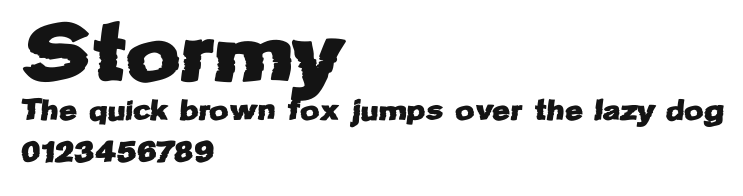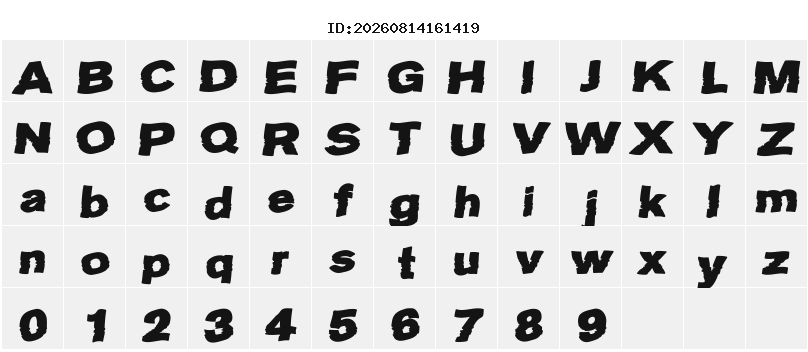
• Font Name: Stormy
• Font ID: Stormy
• Full Font Name: StormyBold
• PostScript Name: StormyBold
About Stormy.ttf
Stormy.ttf is a modern, elegant sans-serif font designed for ultimate readability and visual harmony. Perfect for branding, headlines, web design, and print materials.